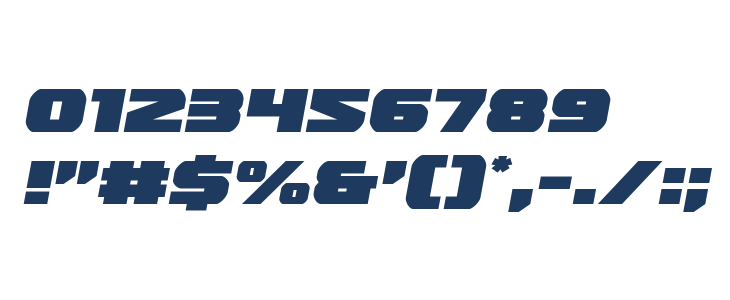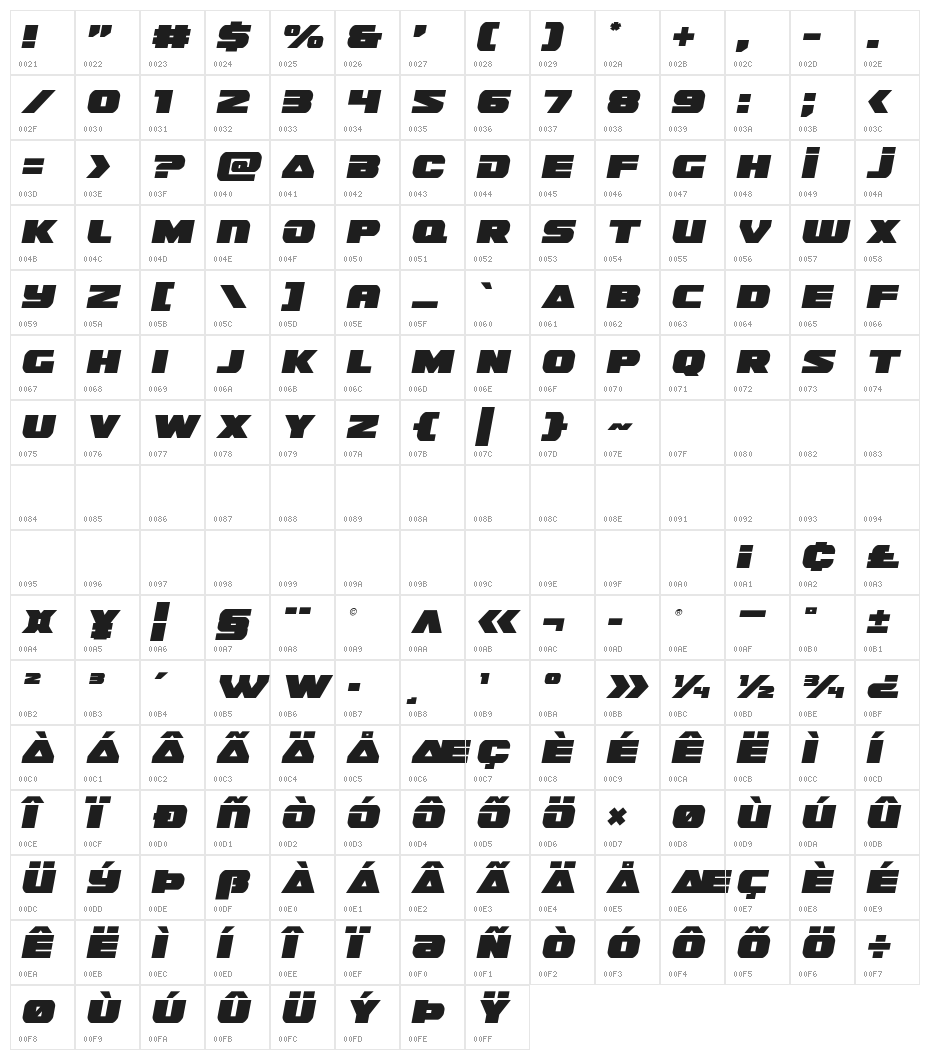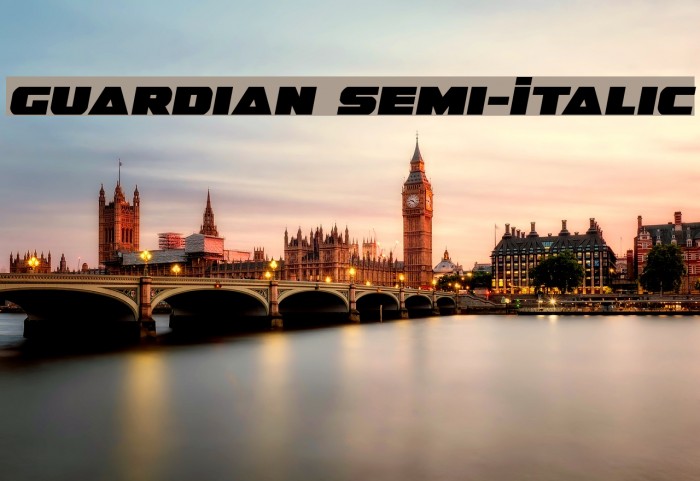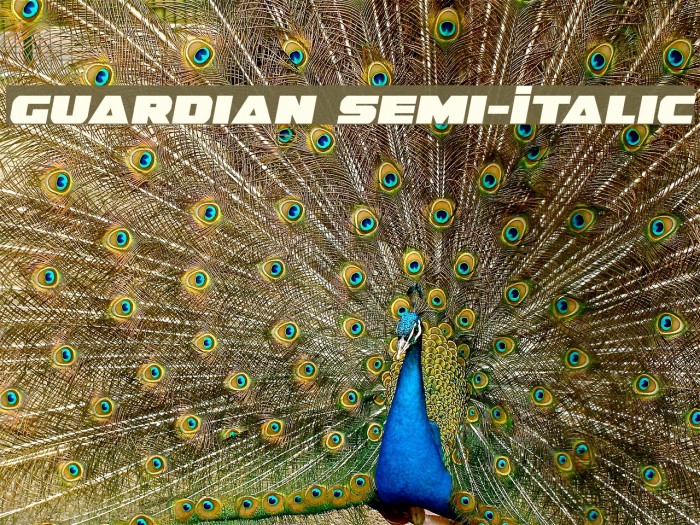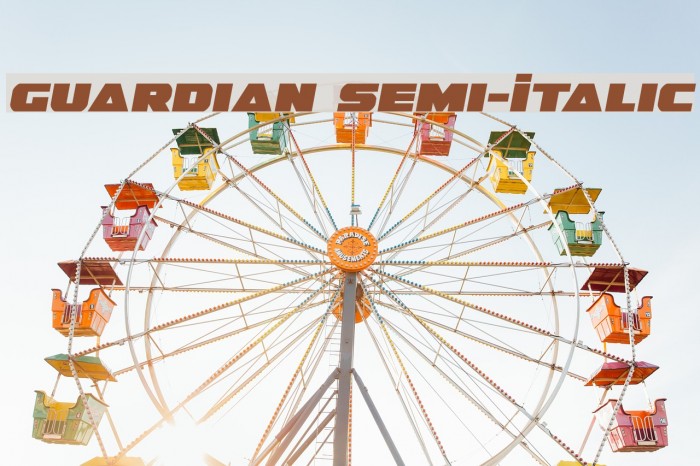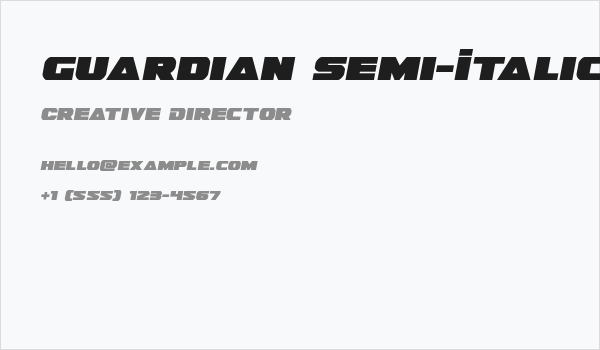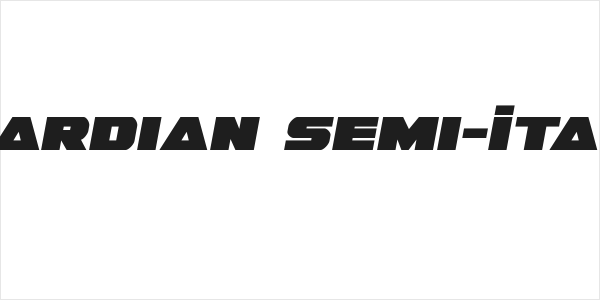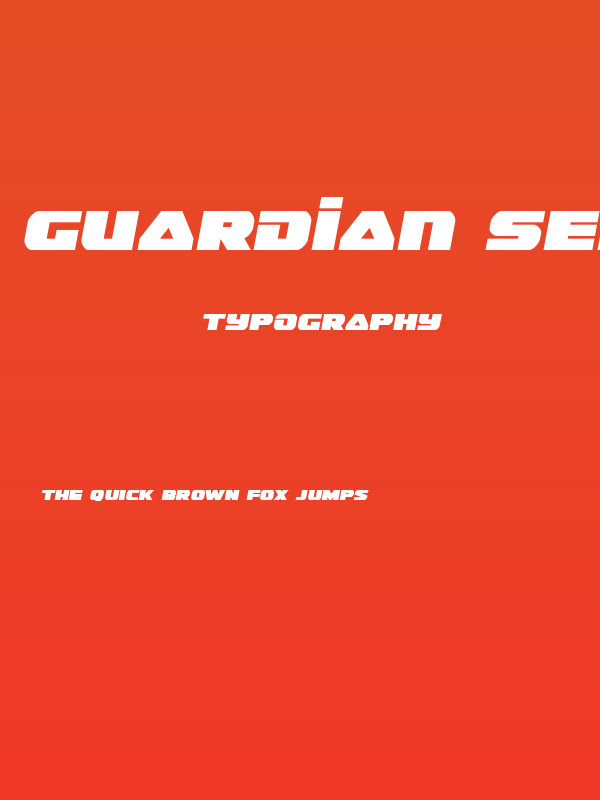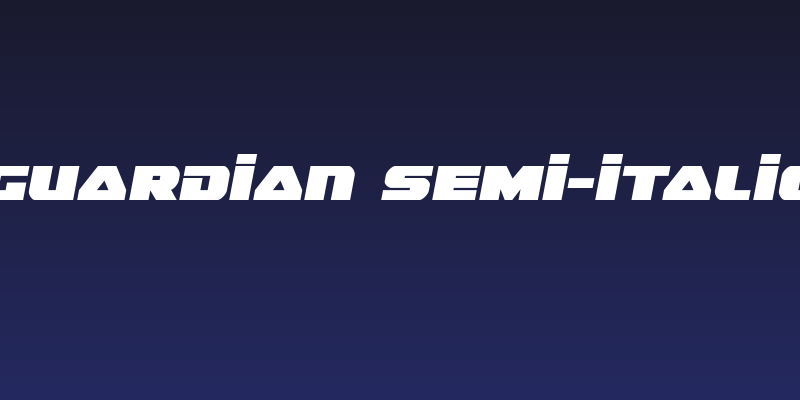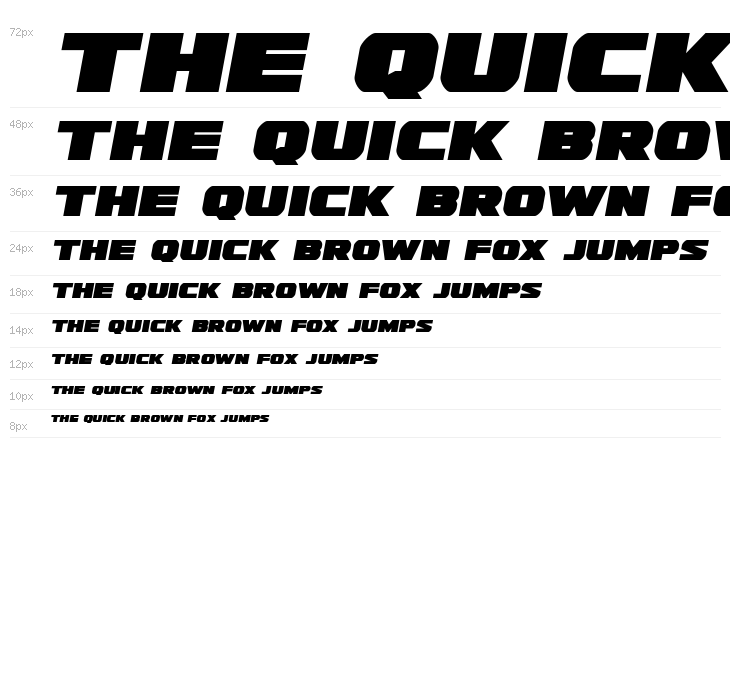
Guardian Semi-Italic Font
Guardian Semi-Italic Description
This font exhibits a bold, dynamic style with a strong presence. The characters are slightly italicized, giving a sense of motion and energy. The strokes are thick and consistent, providing a robust and impactful appearance. The angular design of the letters adds a modern and edgy feel, making it suitable for attention-grabbing headlines or branding. The uppercase and lowercase letters maintain a uniform style, ensuring readability while retaining a unique character. Numbers and special characters are designed with the same boldness, ensuring consistency across all text elements.